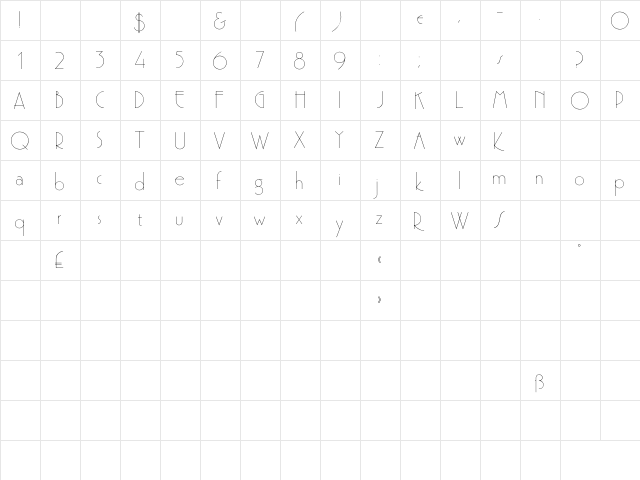
Derer Regular
Design Context for Derer Typeface
Derer offers clean, dependable letterforms without strong stylistic allegiance, making it a practical choice for designers who need flexibility.